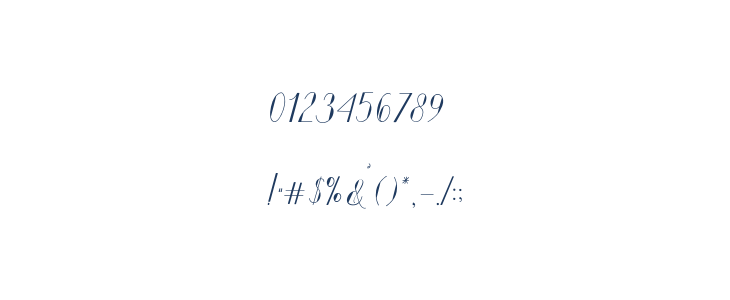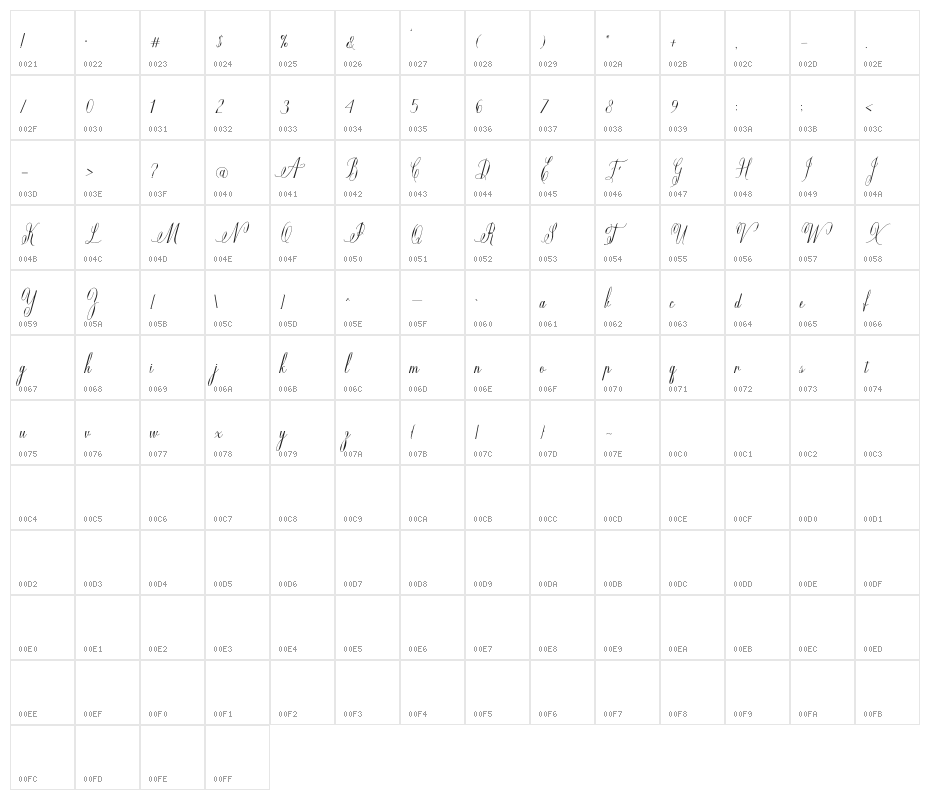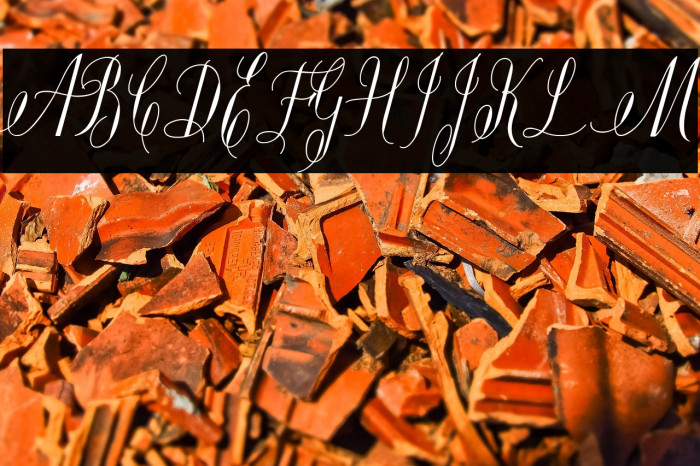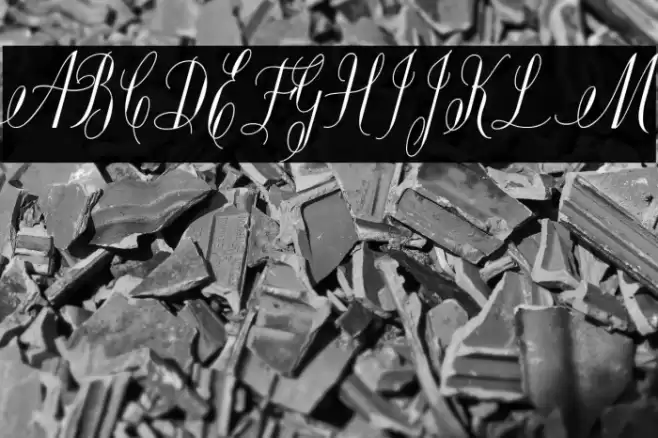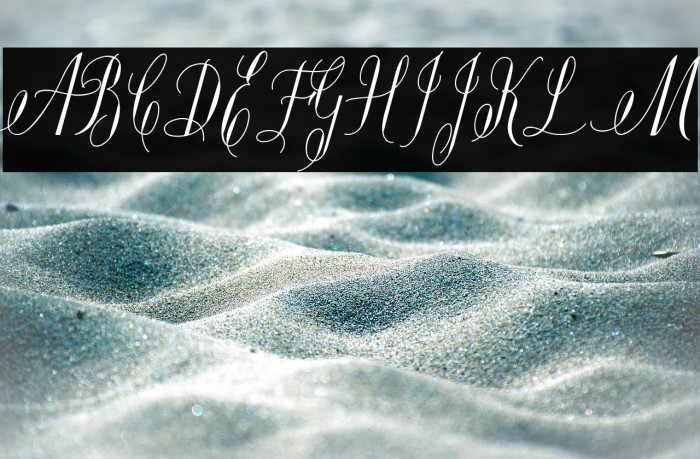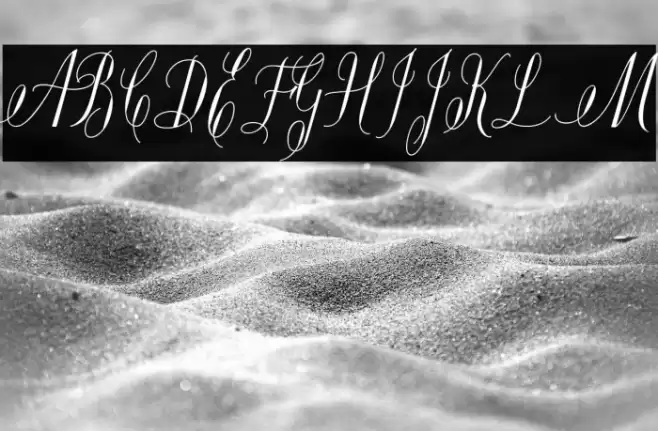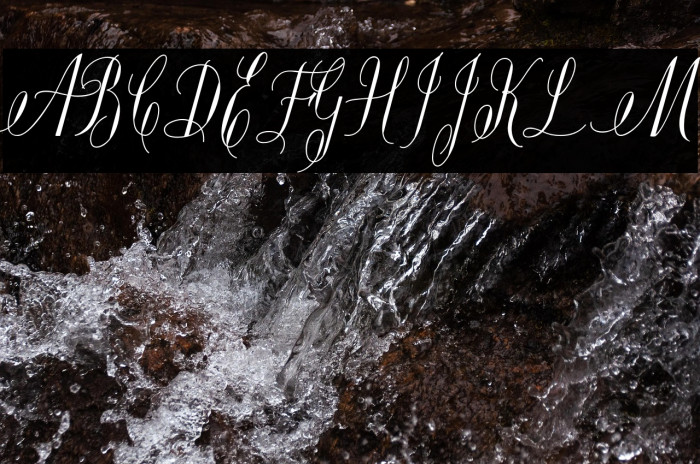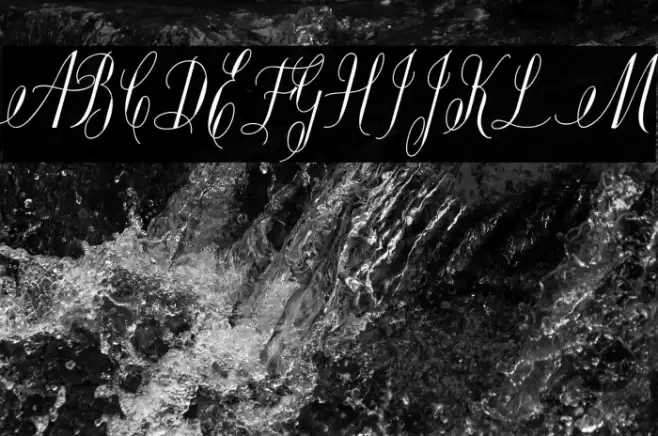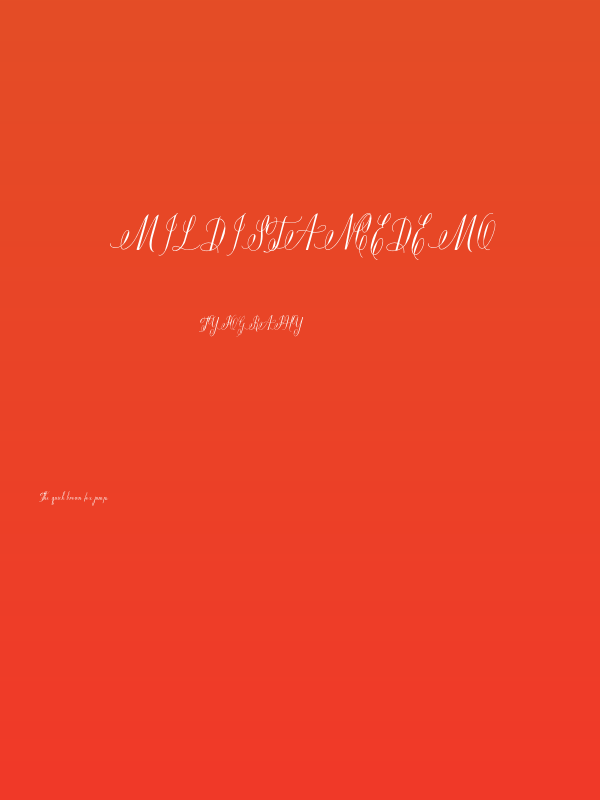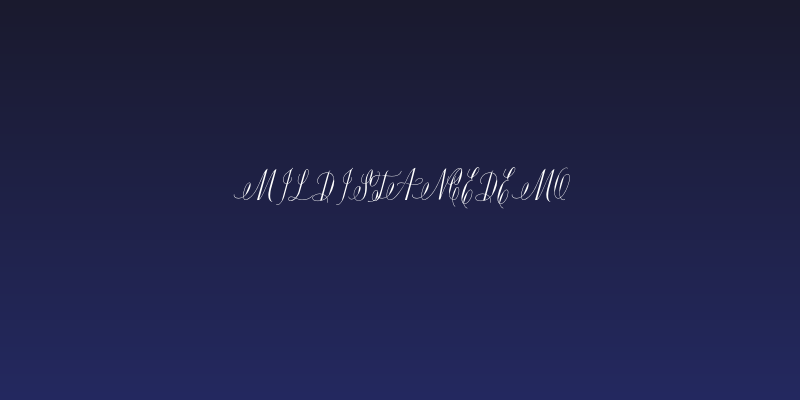
MildistanceDEMO Font
MildistanceDEMO Description
This elegant script font features flowing, interconnected letters with a refined and sophisticated appearance. The uppercase letters are ornate and decorative, with sweeping curves and flourishes that add a touch of luxury. The lowercase letters maintain a consistent style, with smooth, fluid strokes that enhance readability while retaining an artistic flair. Numbers and special characters are designed to match the overall aesthetic, ensuring a cohesive look across all text elements. The font's high contrast between thick and thin strokes adds to its dramatic and stylish appeal, making it ideal for formal and decorative applications.
| Use Case | Headlines, Invitations, Branding |
| Proposed Projects | Ideal for wedding invitations, luxury branding, elegant signage, and decorative headlines. |